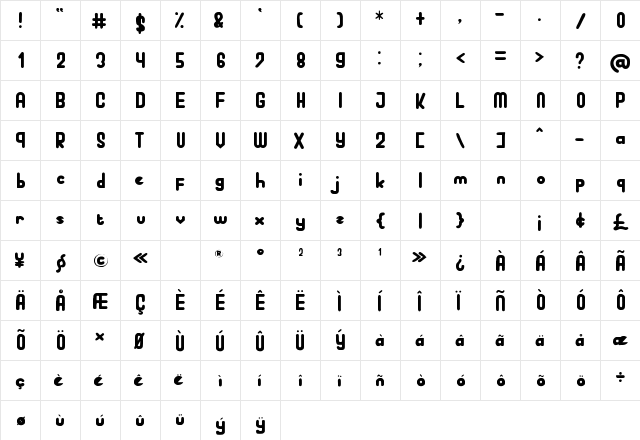
Perky Dream Regular
| Designer | Alpaprana Studio |
Design Context for Perky Dream Typeface
Perky Dream is a composed and adaptable typeface that performs quietly and consistently across a wide range of design contexts.